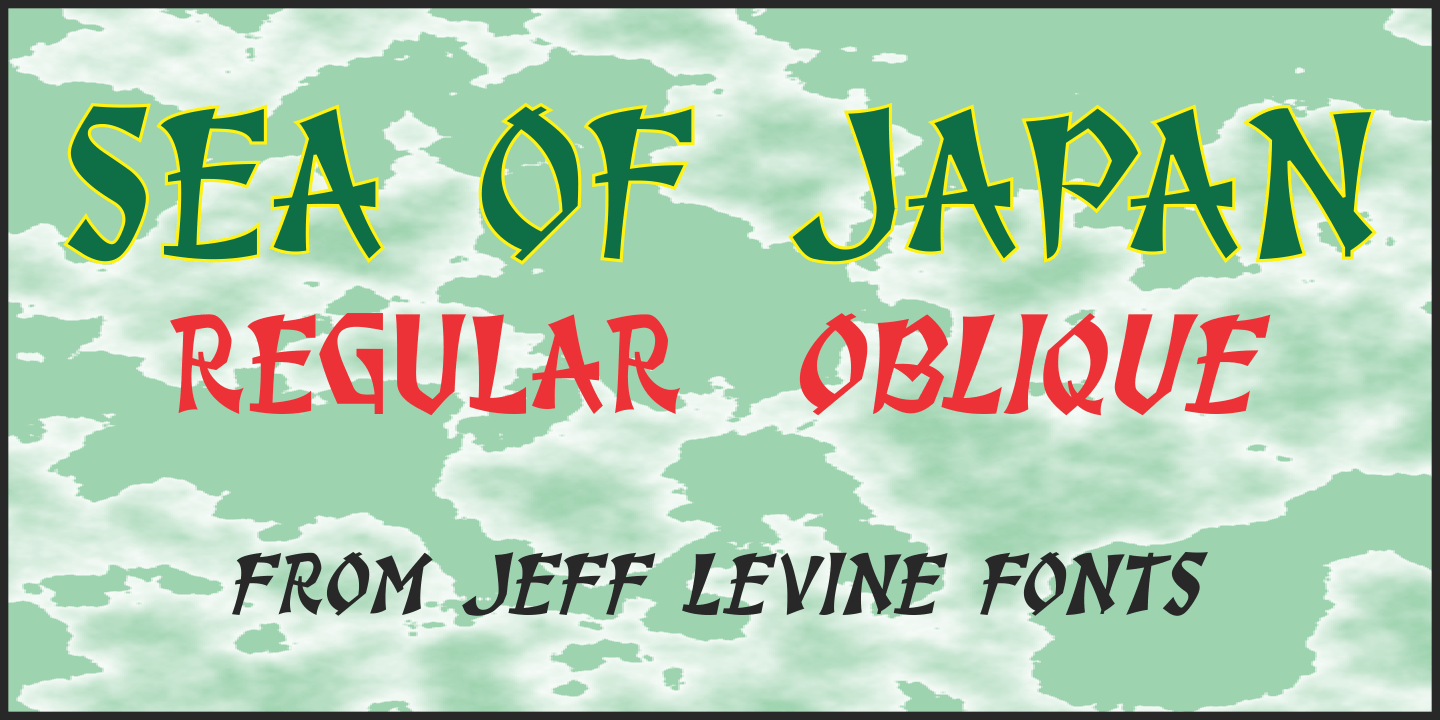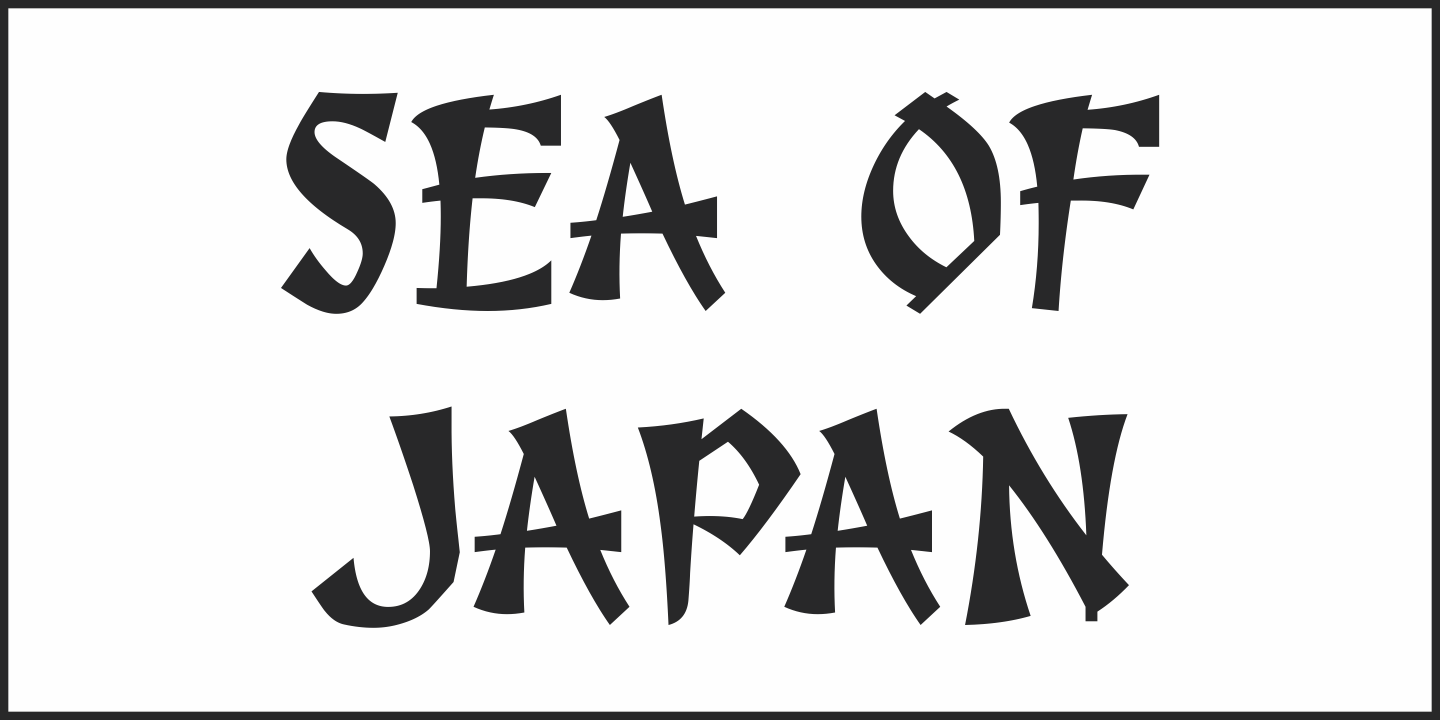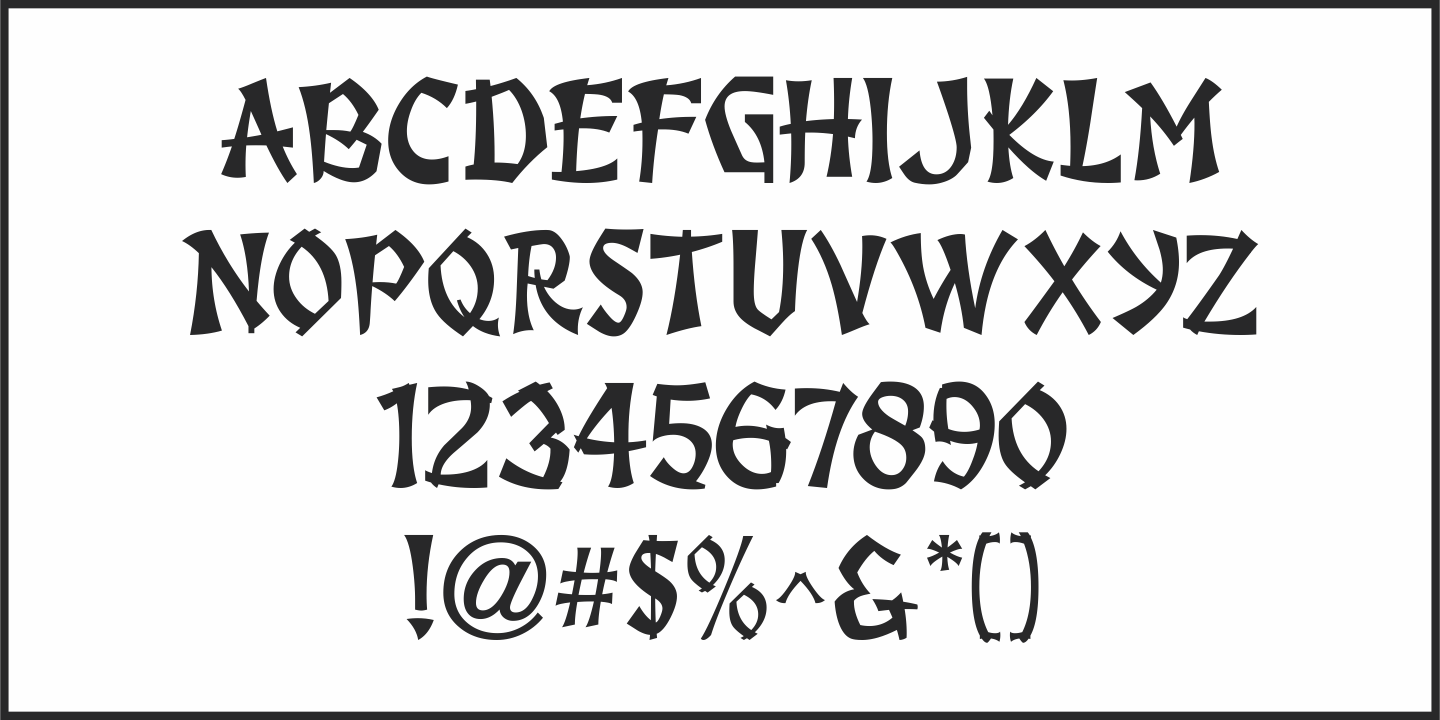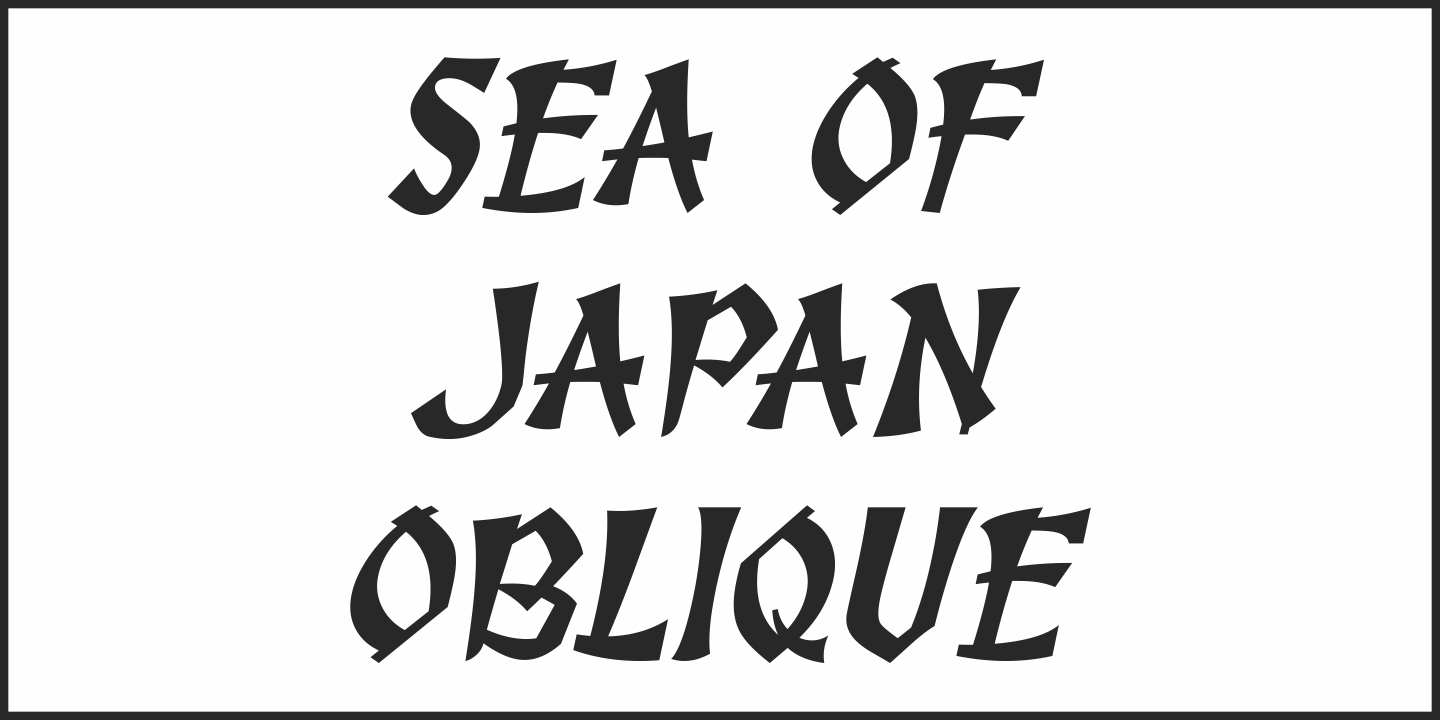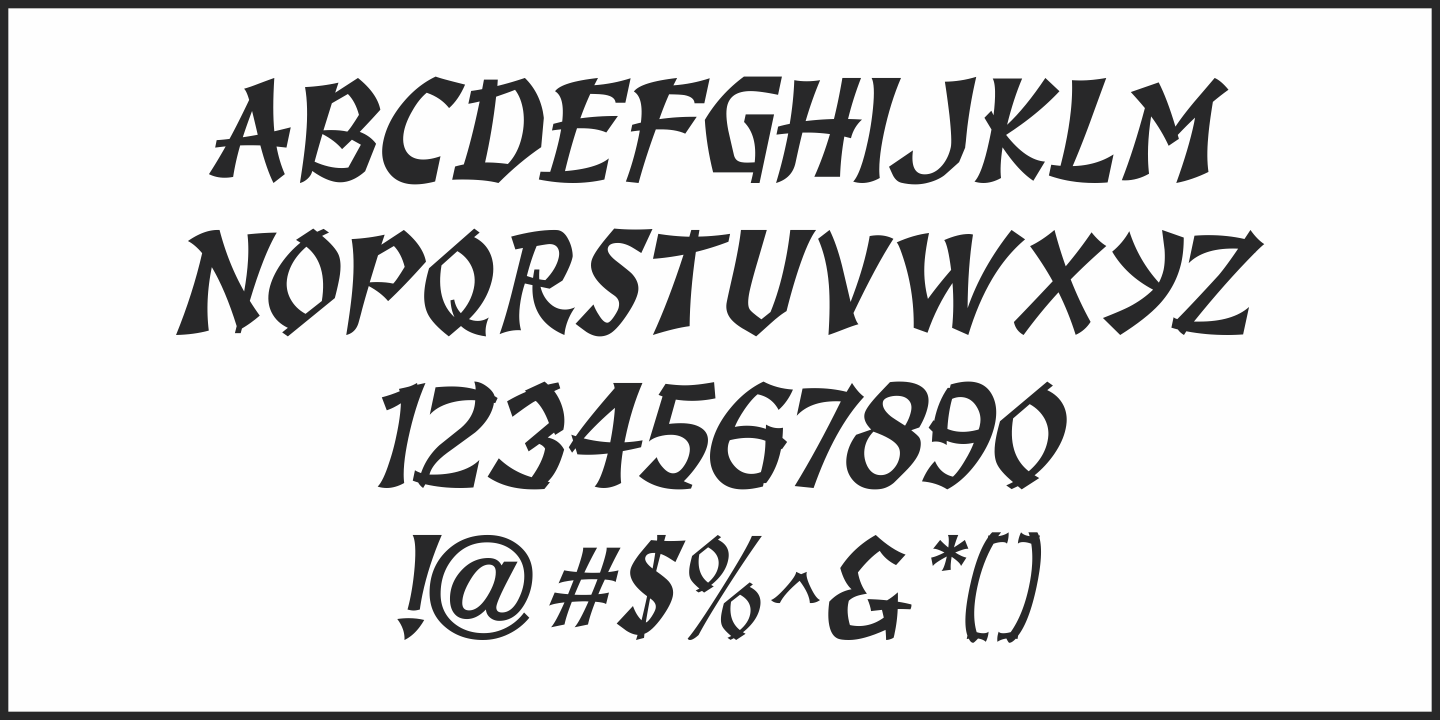
Sea of Japan
A 1922 piece of sheet music entitled 'Japanese Sailor' had its title hand lettered in a Far Eastern motif. This design is now available as Sea of Japan JNL, in both regular and oblique versions.